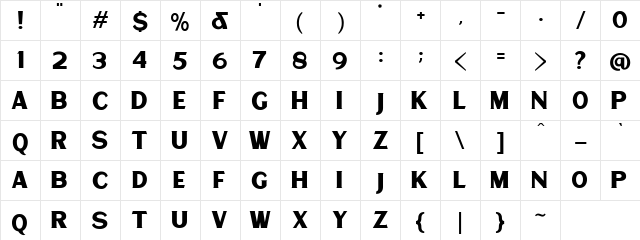
Matrole Regular
| Foundry | Viaction Type |
| Designer | Lukman Hidayat "Viaction Type" |
Design Context for Matrole Typeface
Matrole takes a measured approach to typography — its balanced proportions and neutral character make it a reliable workhorse for both digital and print work.